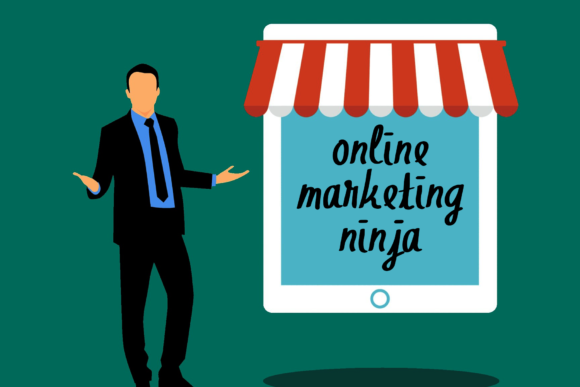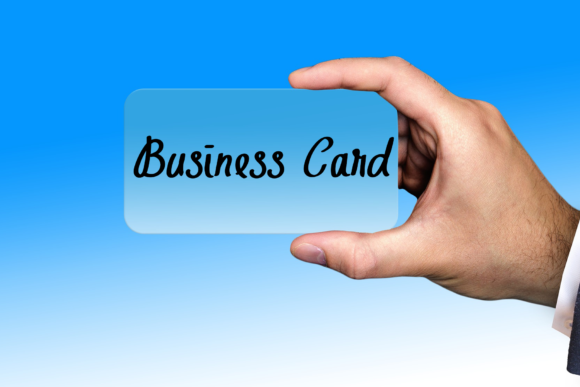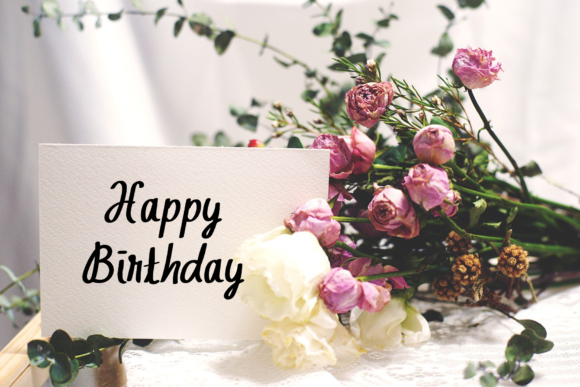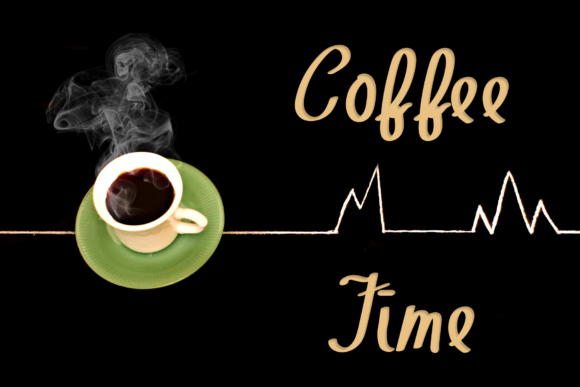
Introduction to Lovanica Font
Have you ever stared at a blank canvas, feeling the pressure to create something truly unique for your next design project? You’re not alone. As designers, we’re constantly on the hunt for that special something to set our work apart from the rest. And that’s exactly where the Lovanica Font comes in – a bold and casual handwritten font that’s about to revolutionize the way you approach your creative projects.
Imagine having the perfect design resource at your fingertips, one that can effortlessly stand out on even the most cluttered of backgrounds or shine as a standalone headline. With Lovanica Font, that’s exactly what you get – a high-quality, free download that’s just waiting to elevate your designs to the next level.
Key Features of Lovanica Font
- Comes in a single weight, making it easy to use in a variety of contexts
- Perfect for use in graphic design, digital art, and other creative endeavors
Honest Review: Lovanica Font
I recently stumbled upon the Lovanica Font, a popular design resource that’s been making waves in the creative community. As a designer, I was excited to give it a try and see what it’s all about.
- The Lovanica Font is incredibly versatile and comes in a range of styles, making it perfect for a variety of creative projects.
- The transparent background option allows for seamless integration with any design element.
- The high quality of the font ensures that it looks crisp and clear, even at larger sizes.
- The Lovanica Font may not be the best choice for projects that require a more formal or traditional look.
- The font’s creative style may not appeal to everyone’s taste.
Overall, I’m impressed with the Lovanica Font. Its high quality, versatility, and free download make it a great addition to any designer’s toolkit. While it may not be the perfect fit for every project, it’s definitely worth considering for your next creative endeavor.
How to Use Lovanica Font
Tips for Getting the Most Out of Lovanica Font
For the best results, use Lovanica Font in combination with other design elements that complement its elegant style. Experiment with different font sizes, colors, and styles to find the perfect look for your creative project.
Lovanica Font is perfect for a variety of projects, including wedding invitations, business cards, and branding materials. Its high-quality design and transparent background make it an excellent choice for any creative project that requires a touch of elegance and sophistication.